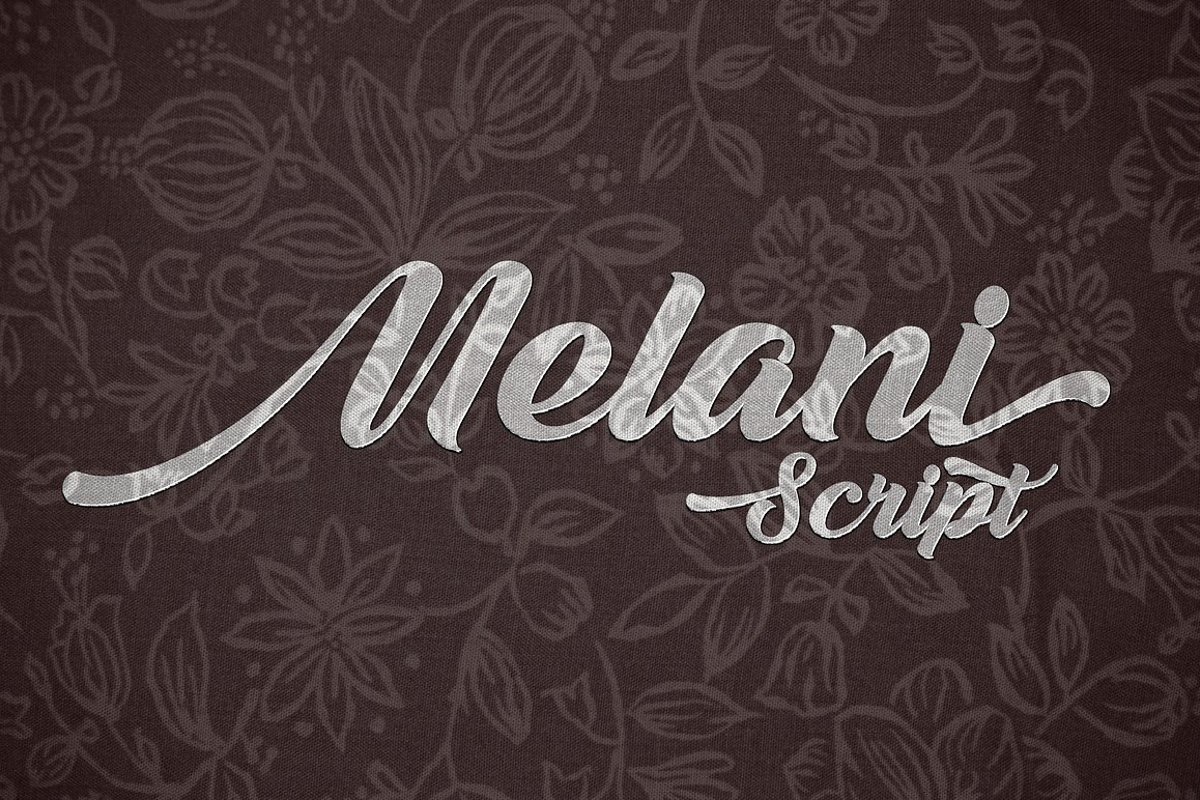
Melani is a script font that has the characteristic caligraphy, it is very suitable to make certain label and event business and you could be using for a unique piece.The alternative characters in Melani Font were divided into several OpenType features such as Stylistic Alternates, Stylistic Sets, Swash and Ligature. The OpenType features can be accessed by using OpenType savvy programs such as Adobe Illustrator and Adobe InDesign.Files Included: